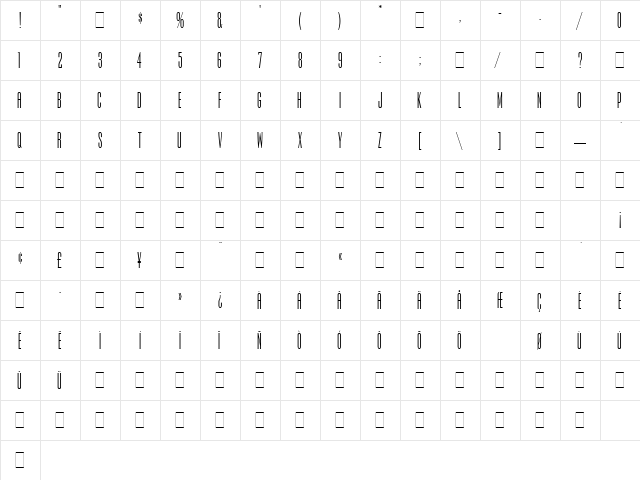
Iris LET Plain
Design Context for Iris LET Typeface
Iris LET takes a measured approach to typography — its balanced proportions and neutral character make it a reliable workhorse for both digital and print work.